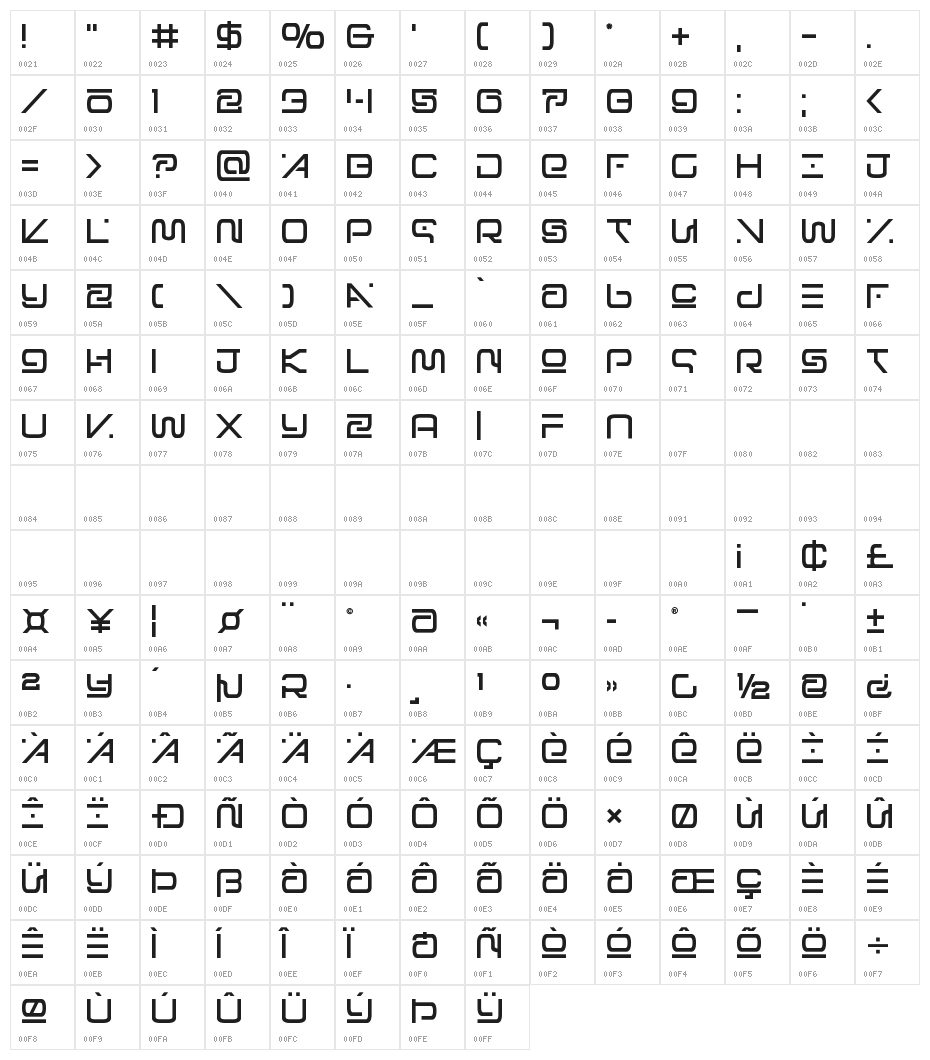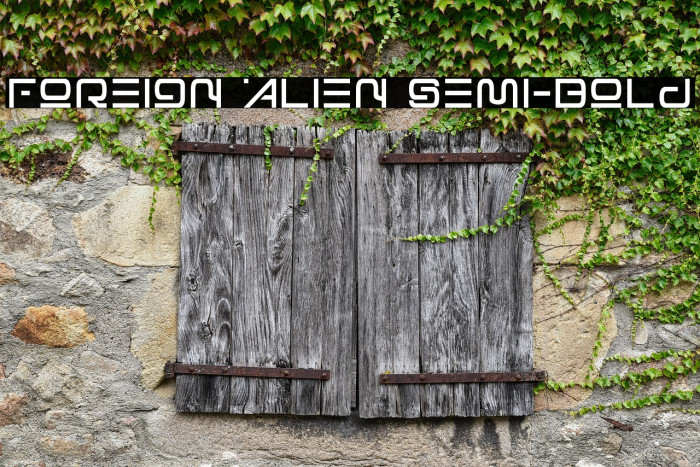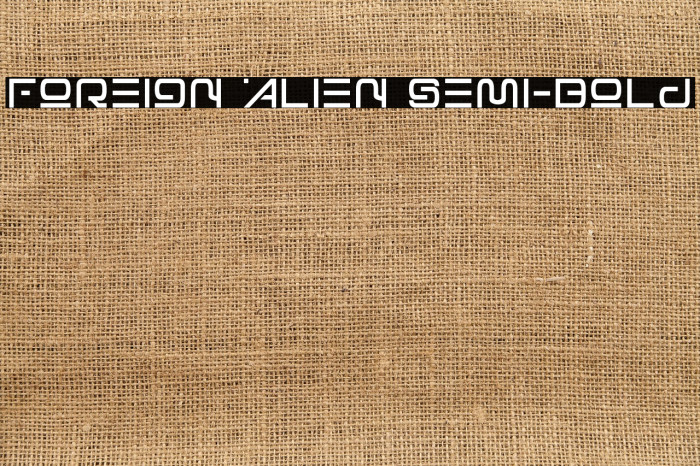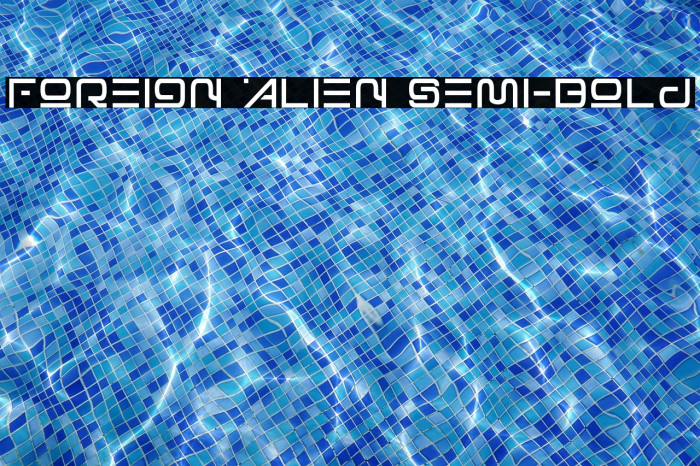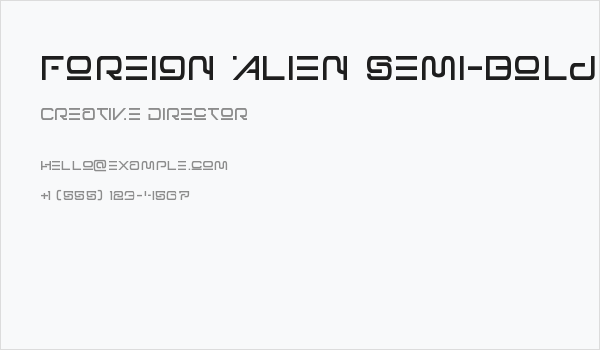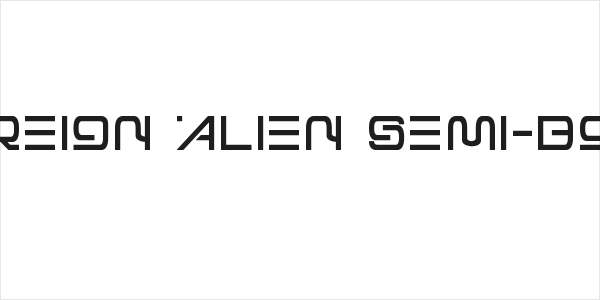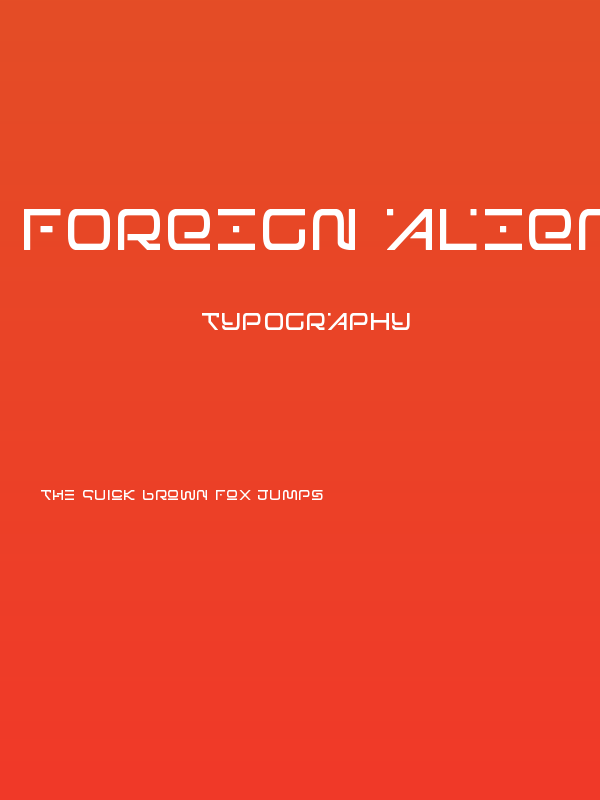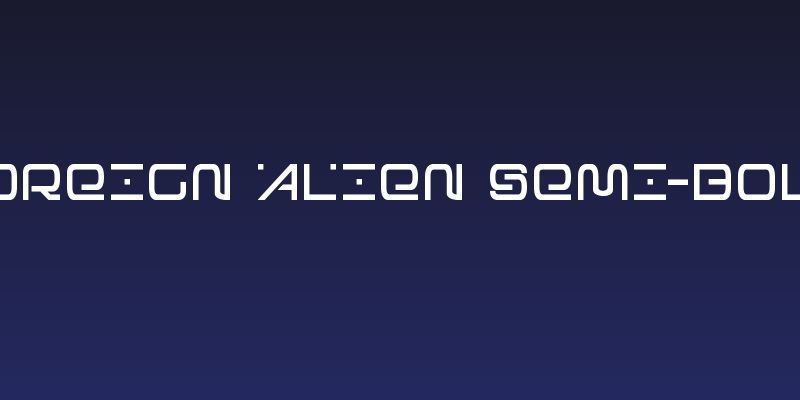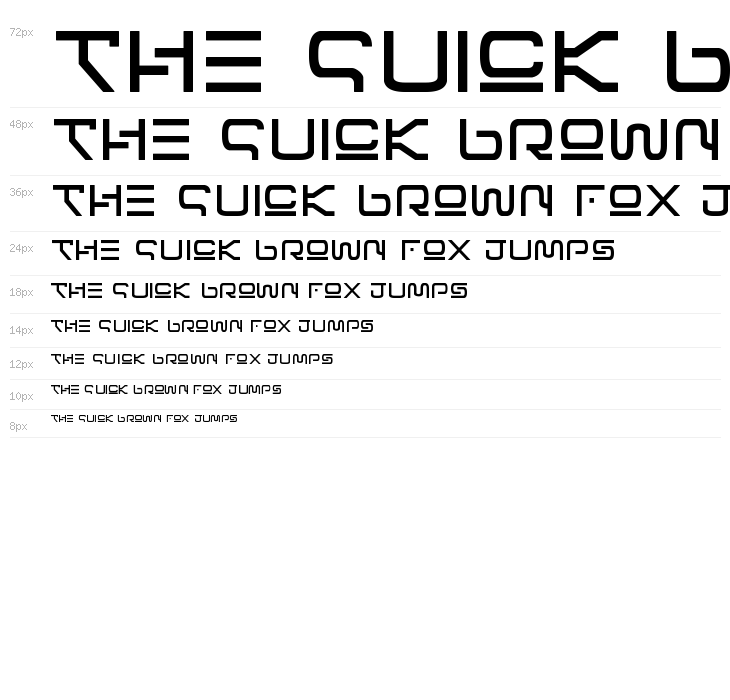
Foreign Alien Semi-Bold Font
Foreign Alien Semi-Bold Description
This font exhibits a futuristic and geometric design, characterized by its sharp angles and clean lines. The characters are constructed with a consistent stroke width, giving it a uniform appearance. The uppercase letters are particularly distinctive, with unique shapes that suggest a modern, technological aesthetic. The lowercase letters maintain the same geometric style, ensuring readability while preserving the font's distinctiveness. Numbers and special characters are designed to match the overall theme, providing a cohesive look across all elements. This font is ideal for projects that require a contemporary and avant-garde feel.
| Proposed Projects | Ideal for sci-fi themed designs, technology branding, video game interfaces, and modern posters. |